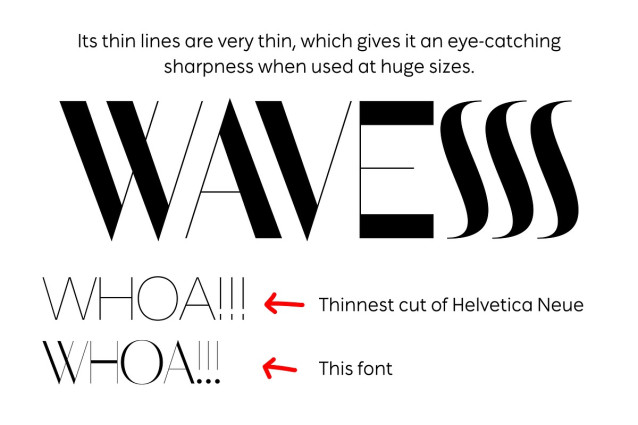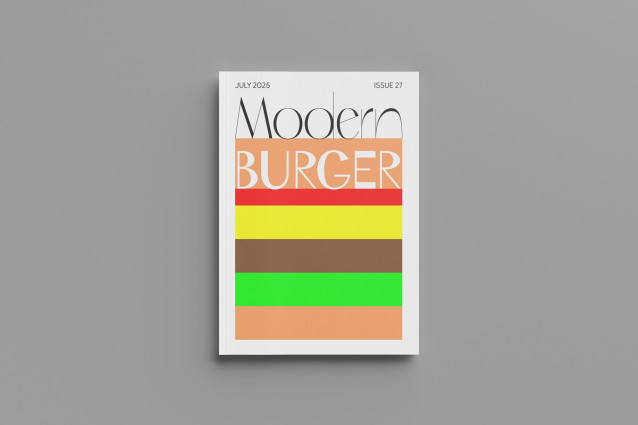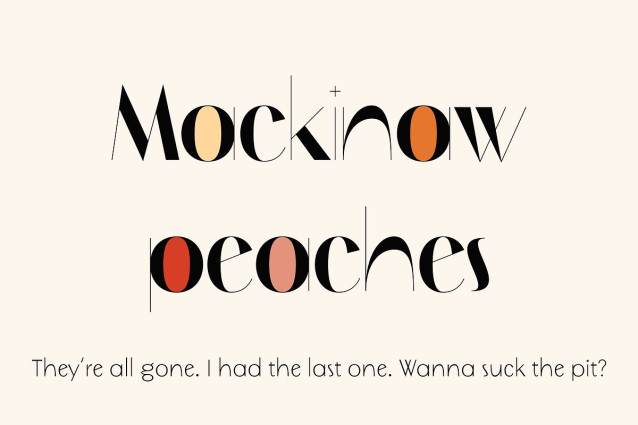
NT Mackinaw Peaches Font
NT Mackinaw Peaches Font is a display font designed to be used at very big sizes. It would be a perfect choice to design posters, affiches, logos, t-shirt and magazine prints, eye-pleasing typographic designs and more.